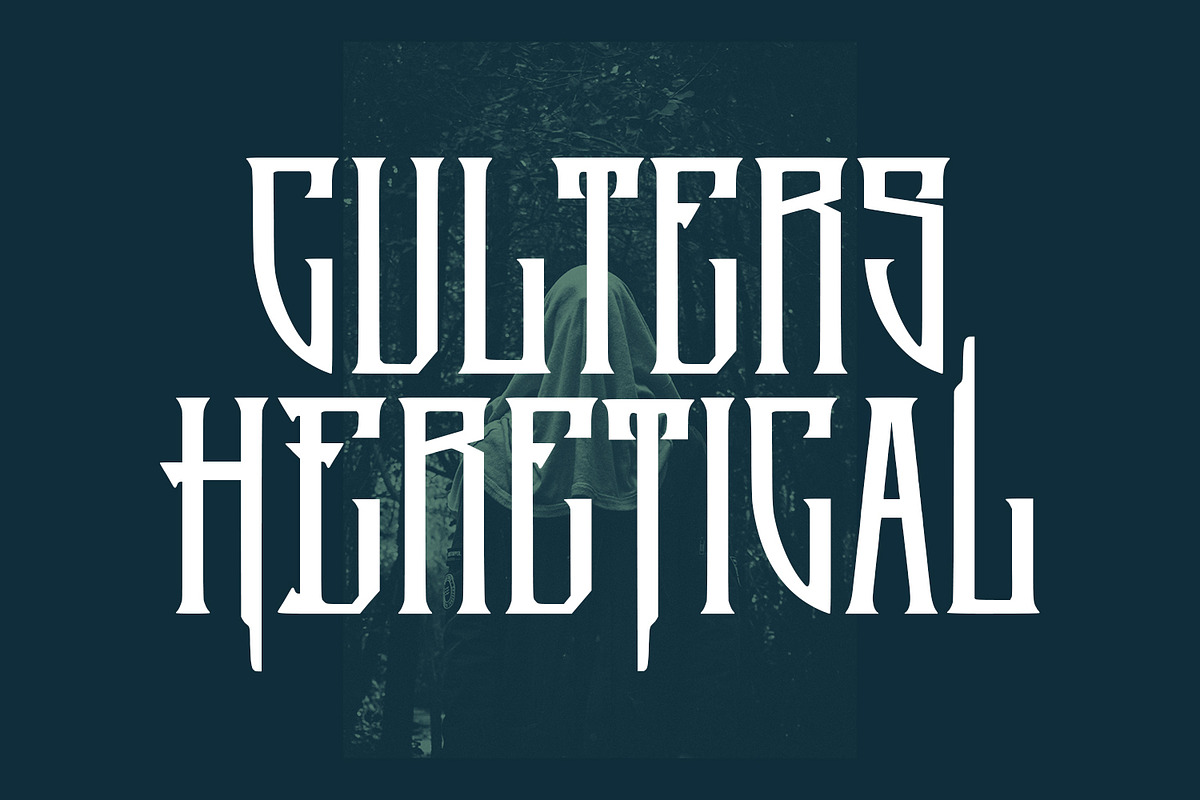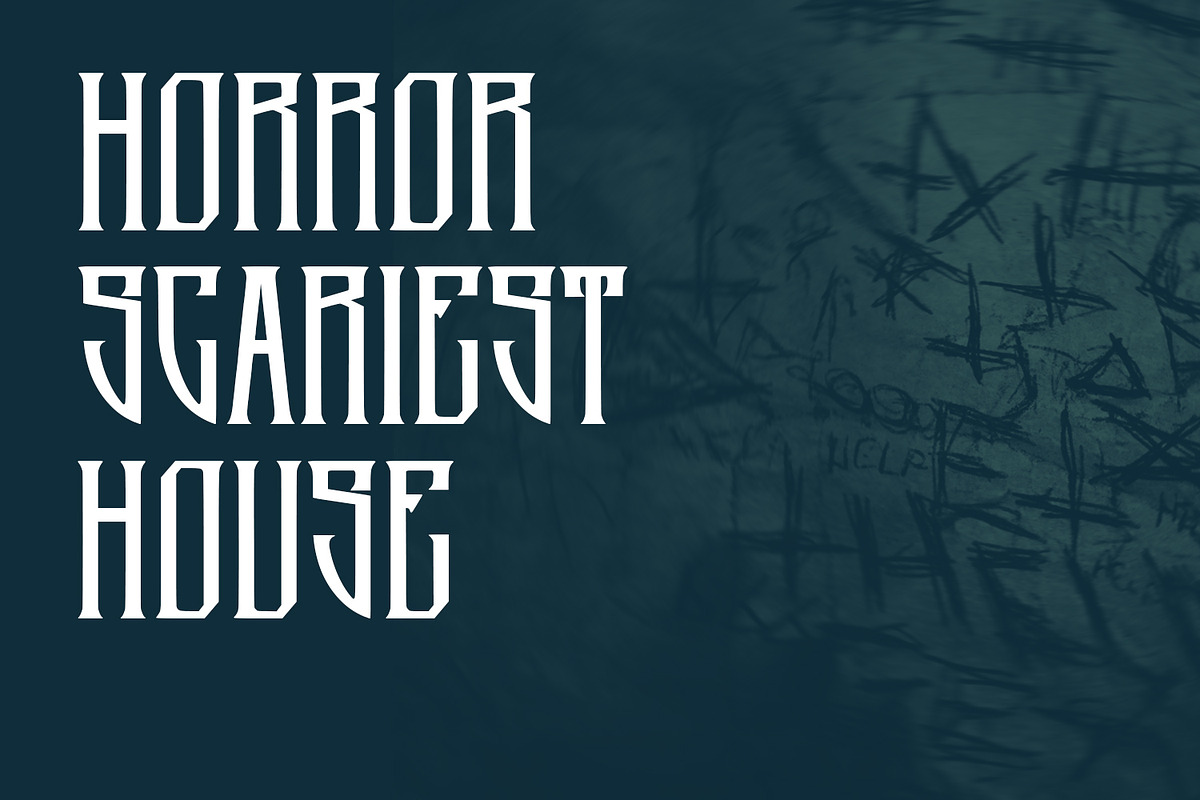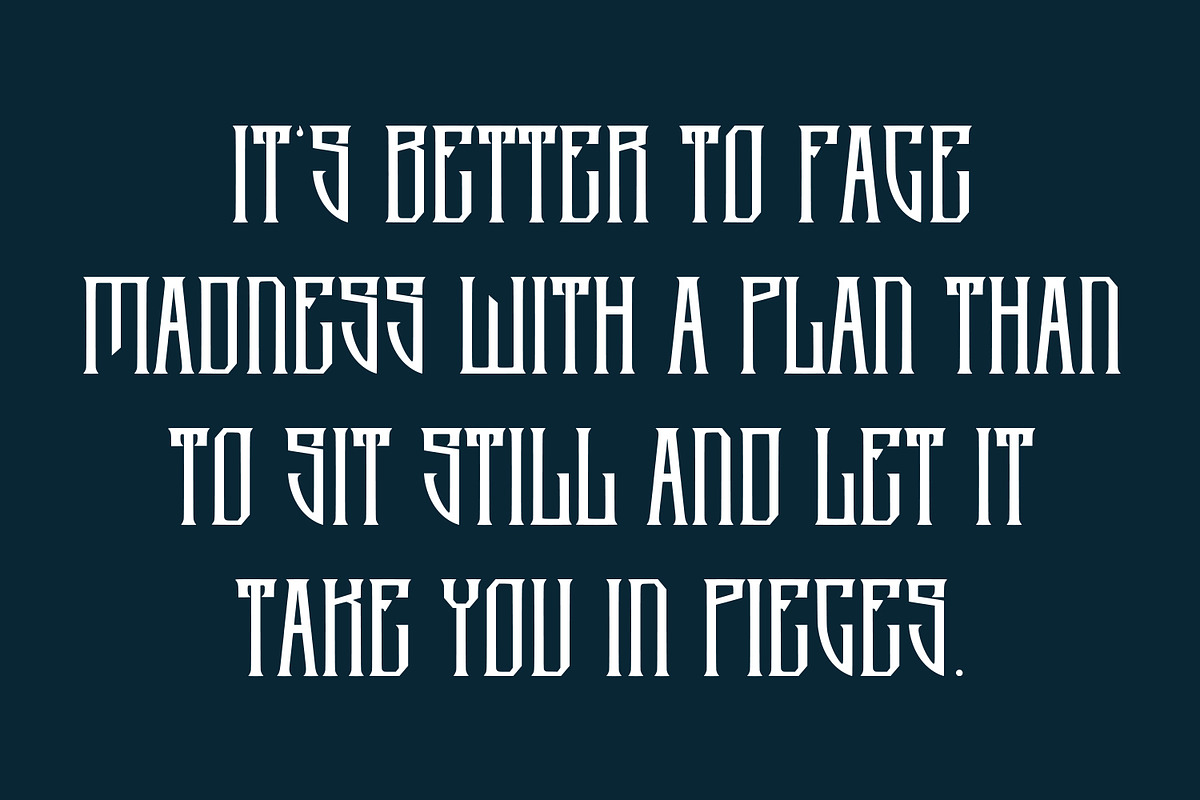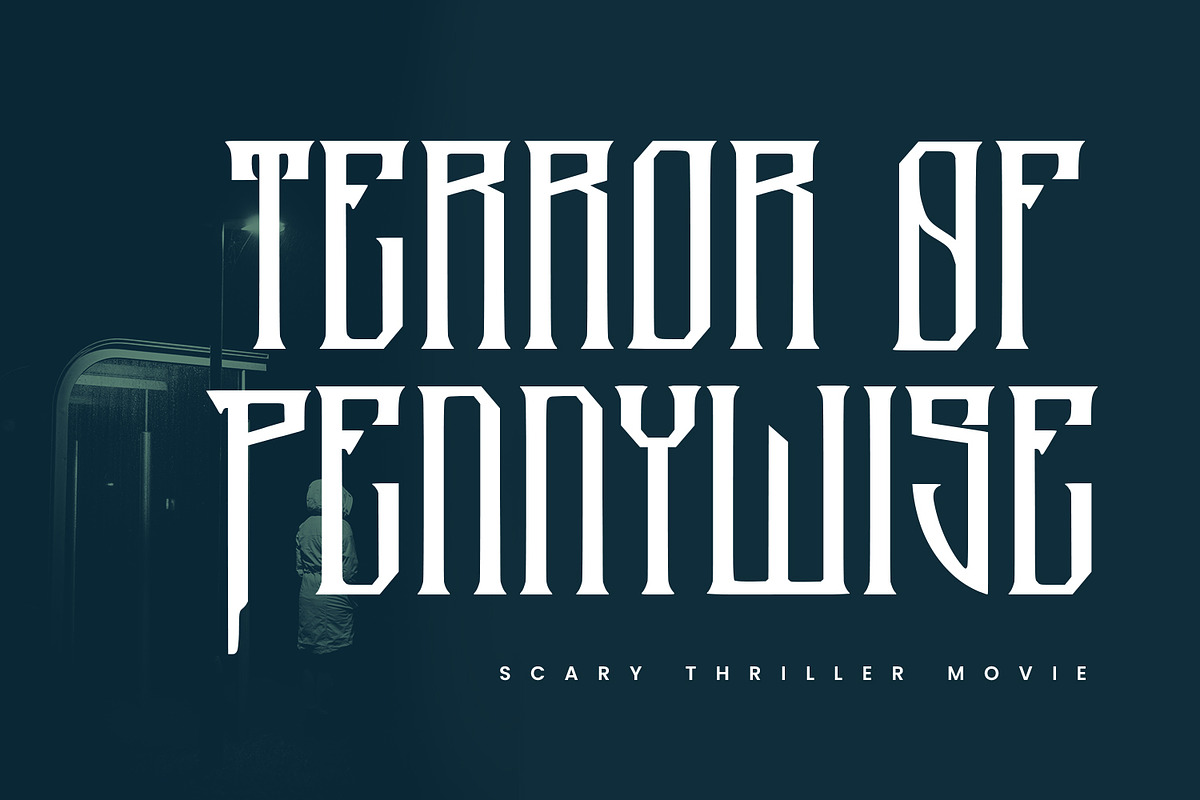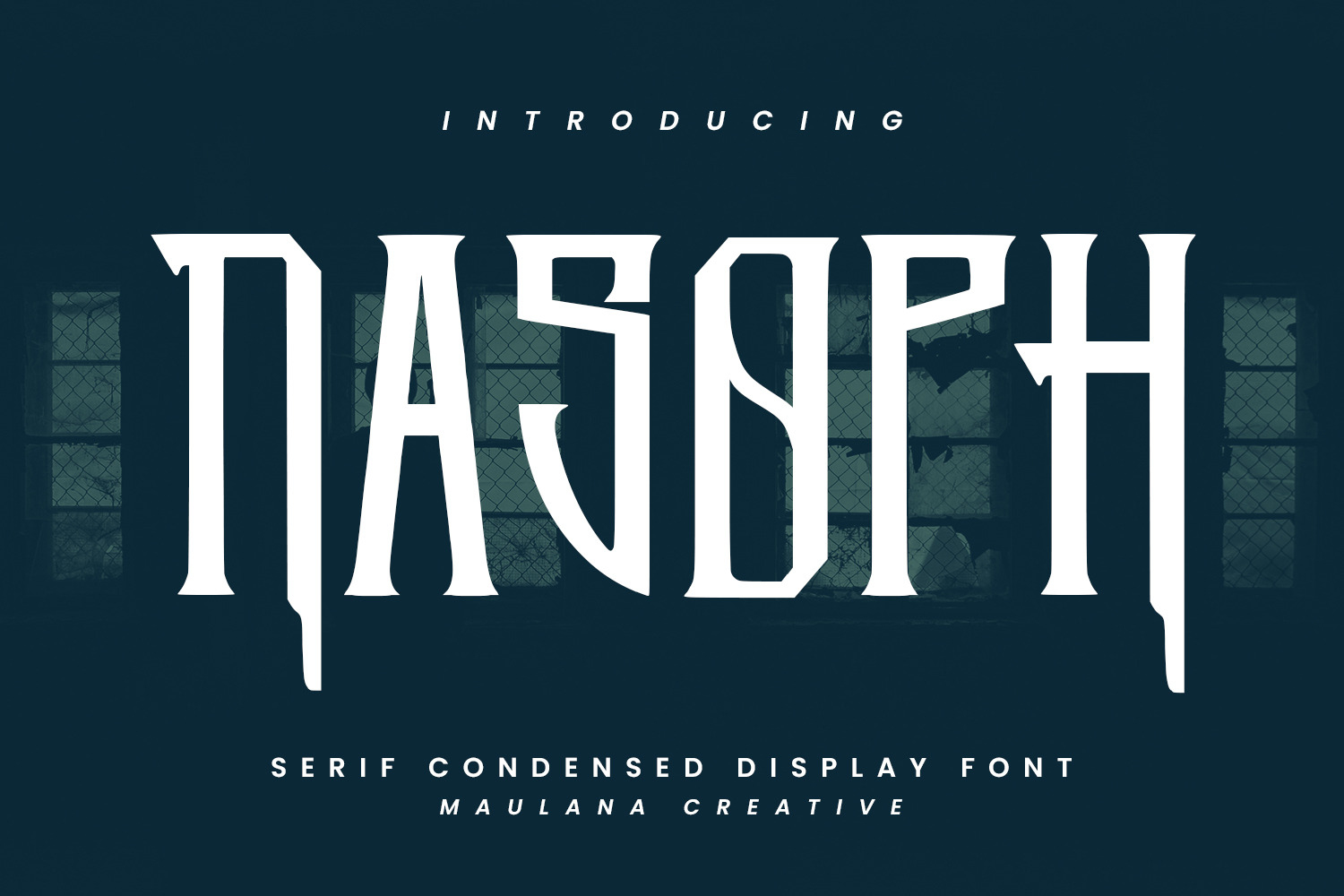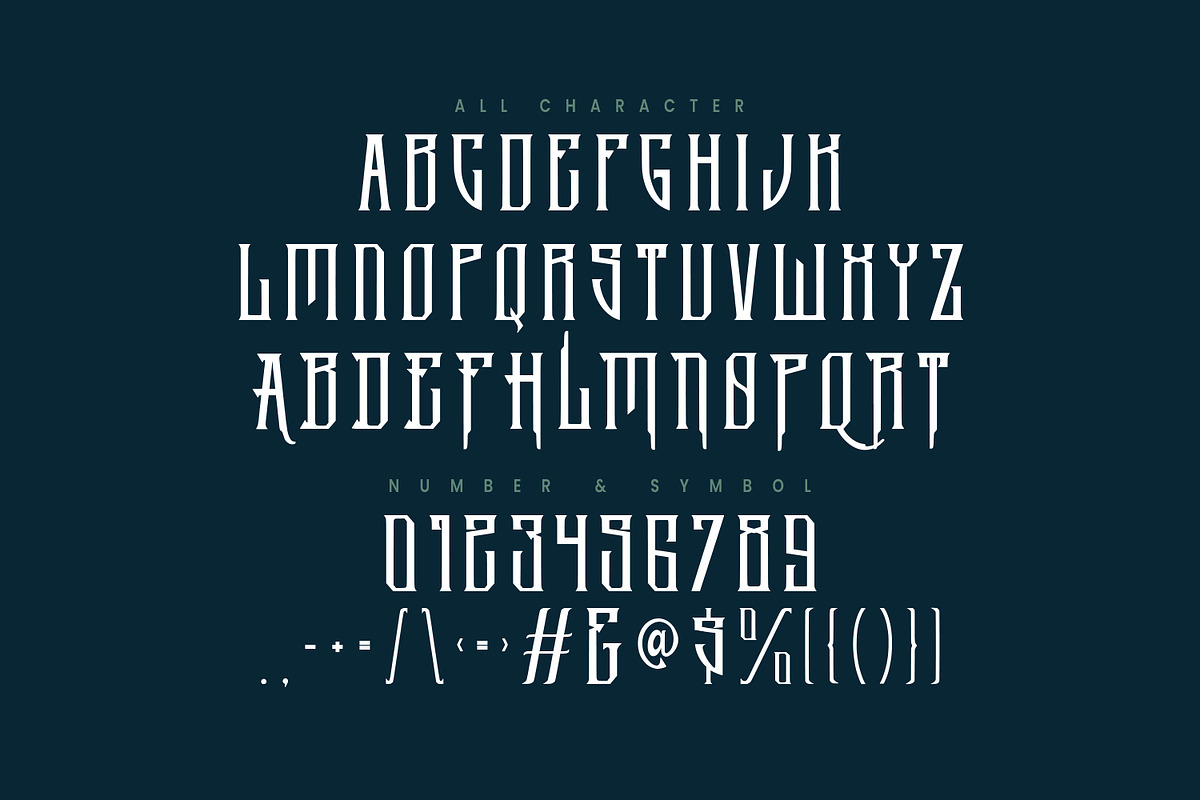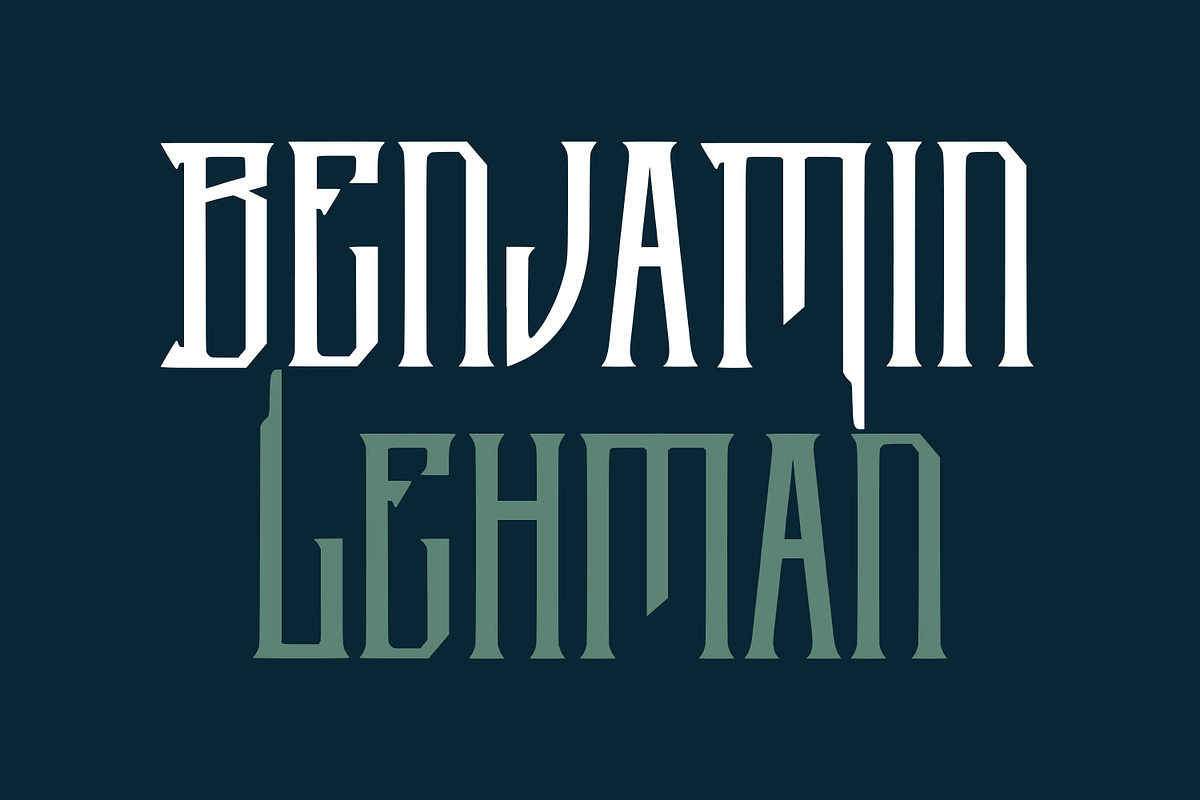
Nasoph Serif Condensed Display Font
Nasoph is a decorative serif display font. Bold stroke, fun character with a bit of ligatures and stylistic. To give you an extra creative work. Nasoph font support multilingual more than 100+ language. This font is good for logo design, Social media, Movie Titles, Books Titles, a short text even a long text letter and good for your secondary text font with script or serif. Make a stunning work with Nasoph font.